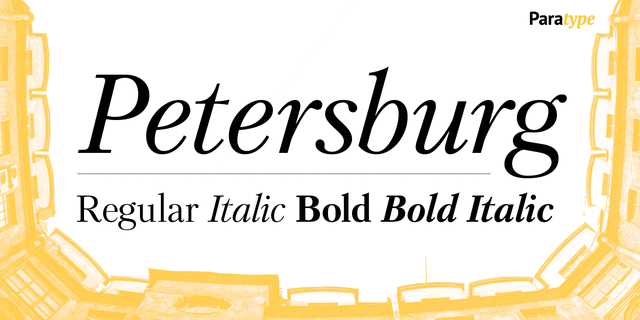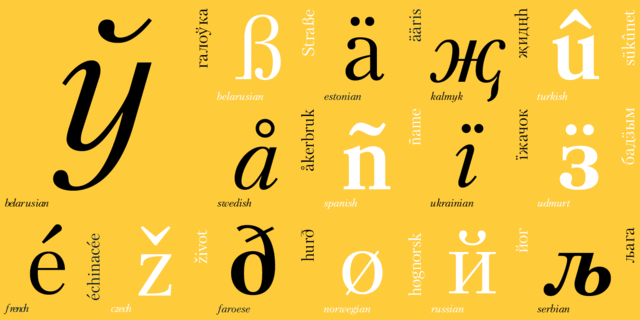
Petersburg (4 fonts)
Petersburg was designed at ParaType (ParaGraph) in 1992 by Vladimir Yefimov, basing on Kudryashevskaya Encyclopedicheskaya of Polygraphmash, 1960–74, a typeface by Nikolai Kudryashev and Zinaida Maslennikova. A very lightweight style with neutral letterforms, it is quite space-saving. The font is excellent for long texts, headings and display typography.
Petersburg supports 80 languagesUkrainian, English, German, Polish, Portuguese, Spanish, French, Russian, Czech, Dutch, Italian, Swedish, Turkish, Finnish, Belarusian, Serbian, Bulgarian, Estonian, Lithuanian, Albanian, Afrikaans, Basque, Breton, Valencian, Galician, Gaelic (Scottish), Danish, Indonesian, Irish, Karakalpak, Catalan, Norwegian, Occitan, Rhaeto-Romance, Sami Lule, Tswansky, Uzbek (Lat.), Frisian, Chamorro, South Sami, Albanian (Win), Hungarian, Upper leprechauny, Karelian, Latvian (Mac), Lithuanian (Mac), Maori (Mac), Moldovan (Lat.), Lower Sorbian, Romanian (Win), Slovak, Slovenian, Turkmen (Lat.), Croatian (Win), Estonian (Mac), Kurdish, Latvian, Maori, Romanian, Abazin, Avar, Agul, Adyghe, Darginsky, Ingush, Kabardino-Circassian, Kabardian, Karachay-Balkar, Kumyk, Lak, Lezghian, Macedonian, Mordovian-Moksha, Mordovian-Erzya, Nogai, Rutulian, Tabasaran, Tatar, Tsakhur, Chechen Functions of font family PetersburgTypeface use in layout:
noble, conservative, traditional, classic, narrative, artistic, silver, educated, sharp, masterful, accurate, aristocratic, elite, correct, static, comme il faut, pretentious, historical, humanitarian, clever, polite, elegant, mannered, beautiful, orderly, regardful, diligent, tactful, lyrical